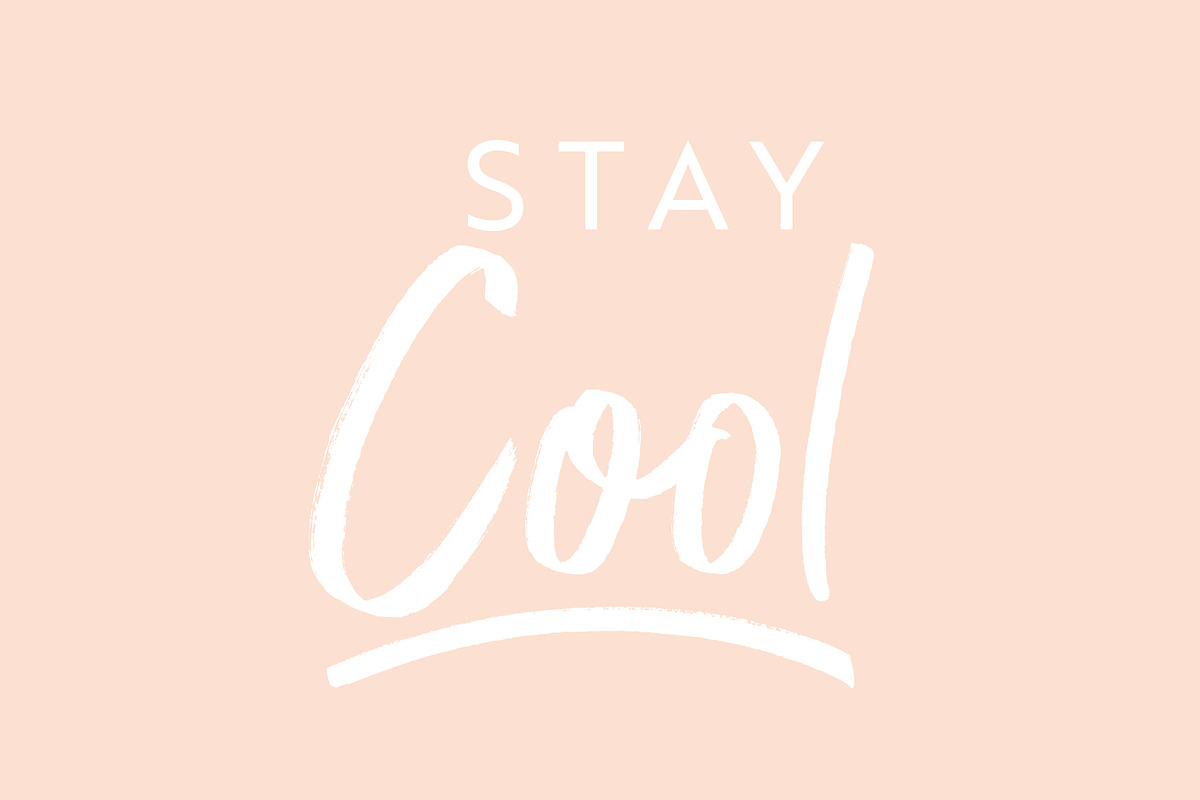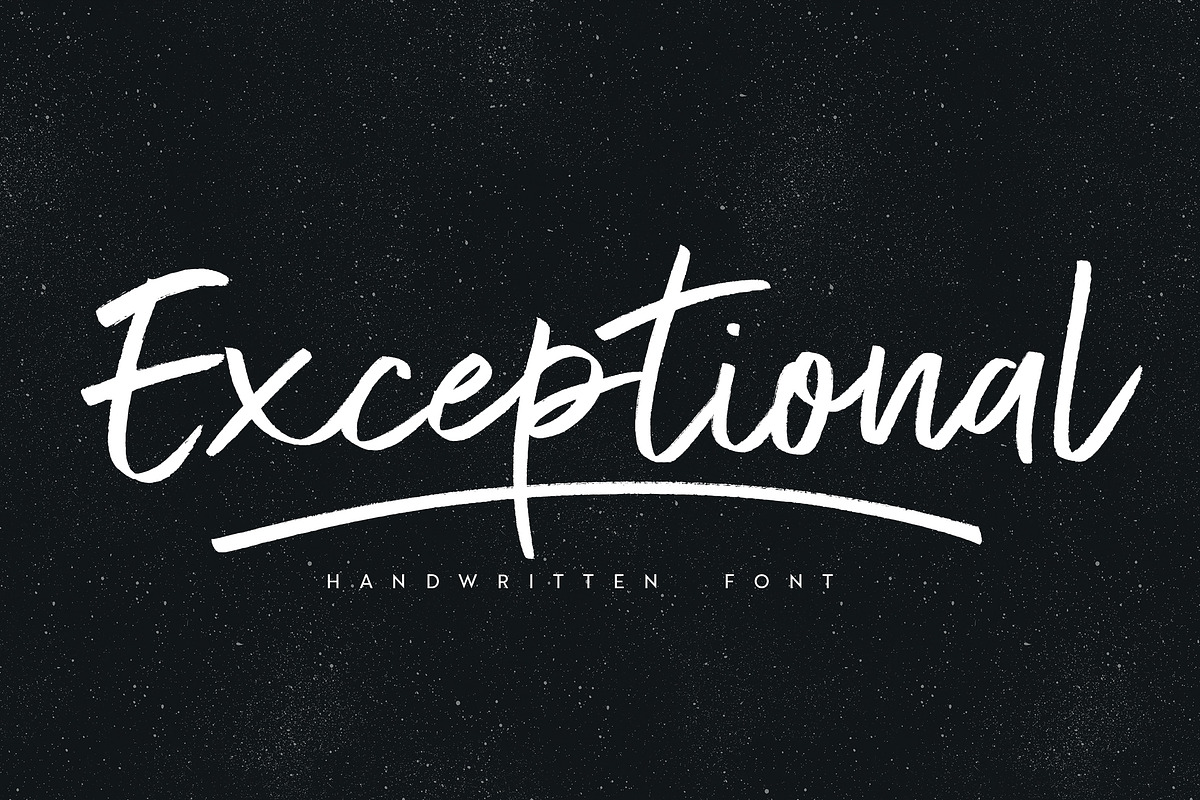
Exceptional font
Exceptional font by Studio&Story is a font selected for branding, posters, packaging, typography.
- Exceptional Is a super trendy Handwritten font, Elegant & modern with gentle brush texture , Exceptional comes with a complete set of lowerc
- Exceptional- A hand drawn script font containing uppercase and lowercase characters, numerals and a large range of punctuation TTF & OTF for
- Exceptional Alt- This is a second version of Exceptional With new set of lowercase and uppercase characters TTF&OTF formats.
Why Exceptional font is worth a look
Exceptional font by Studio&Story fits naturally into Branding, posters, packaging, typography.